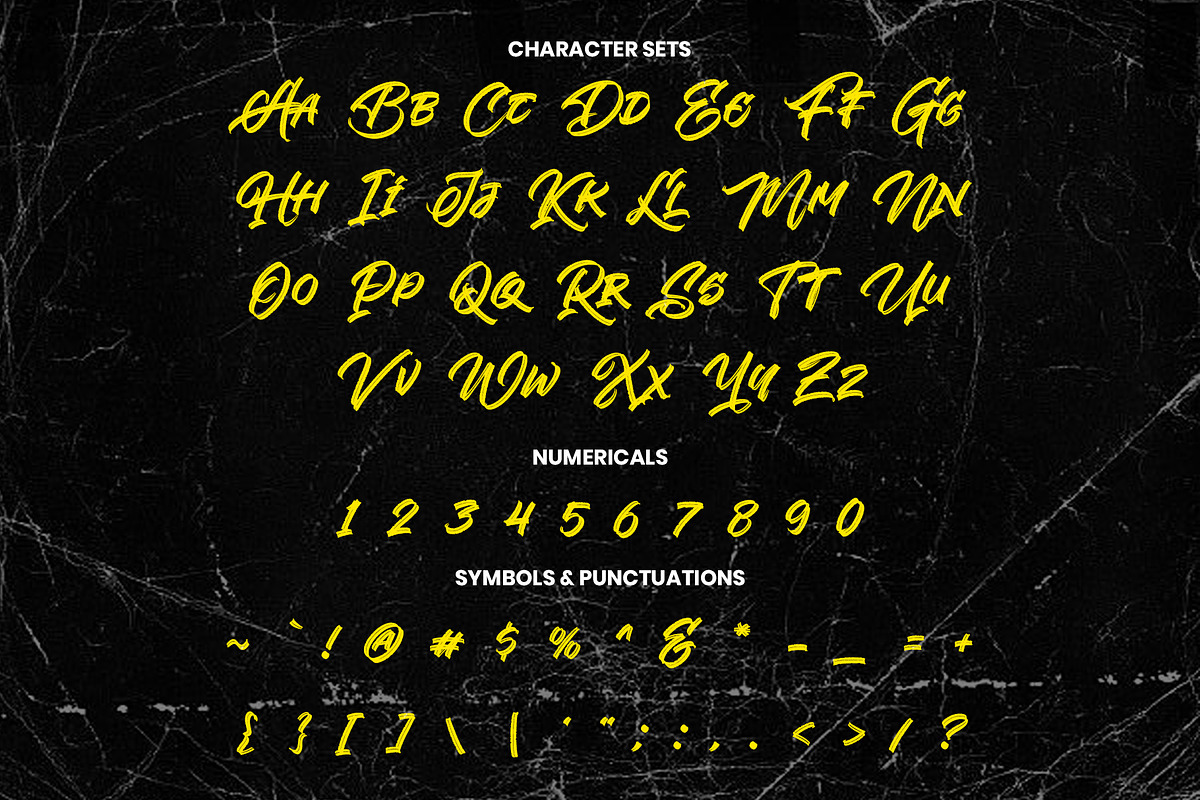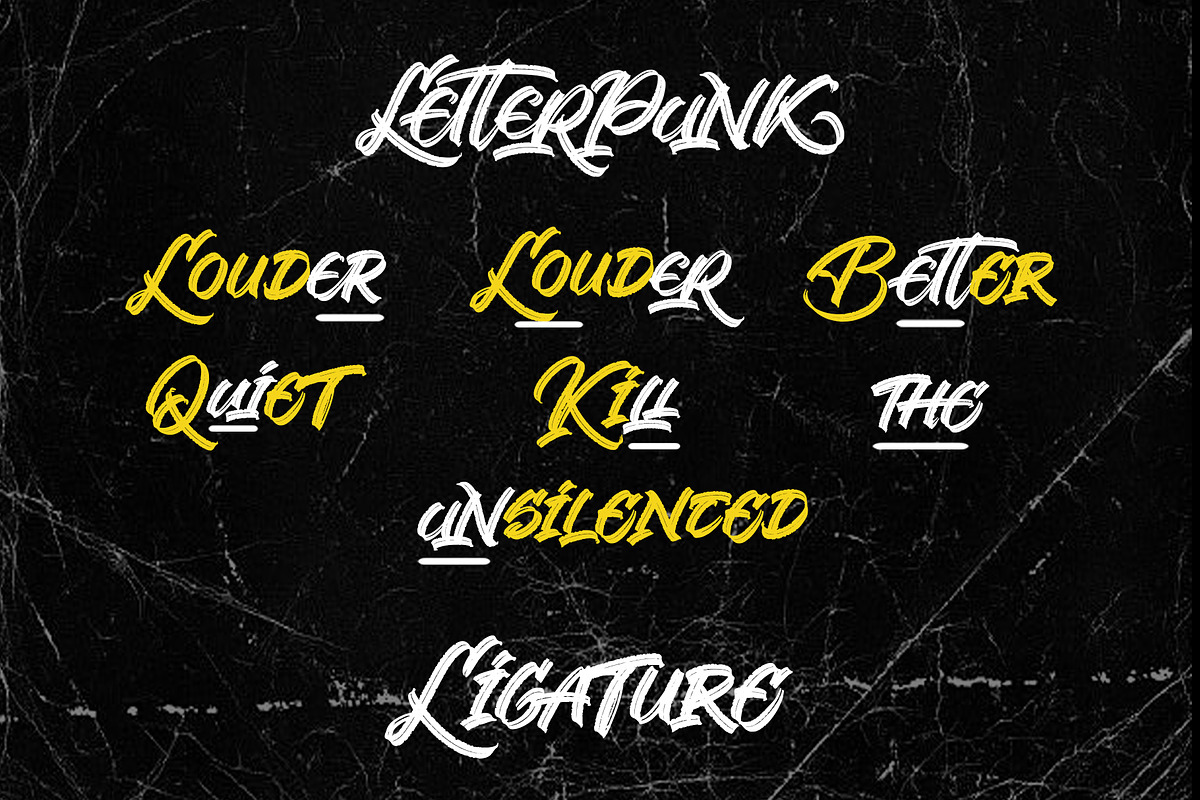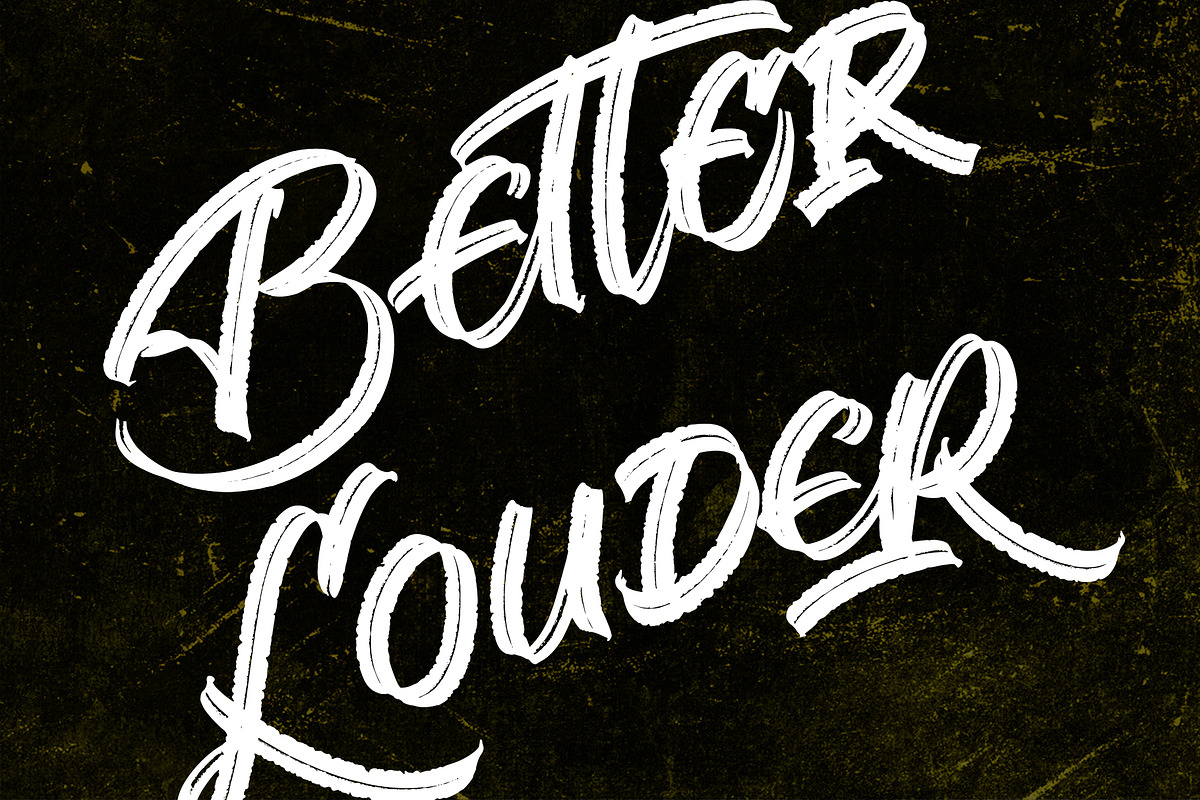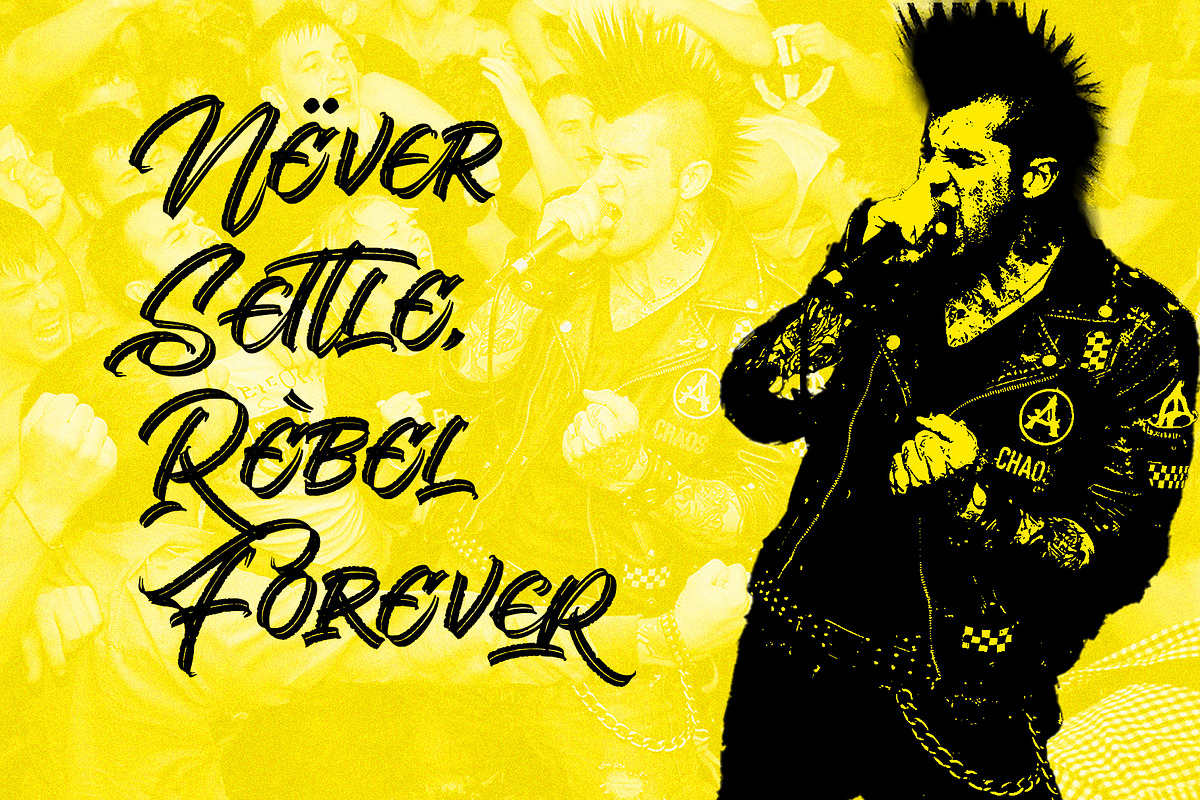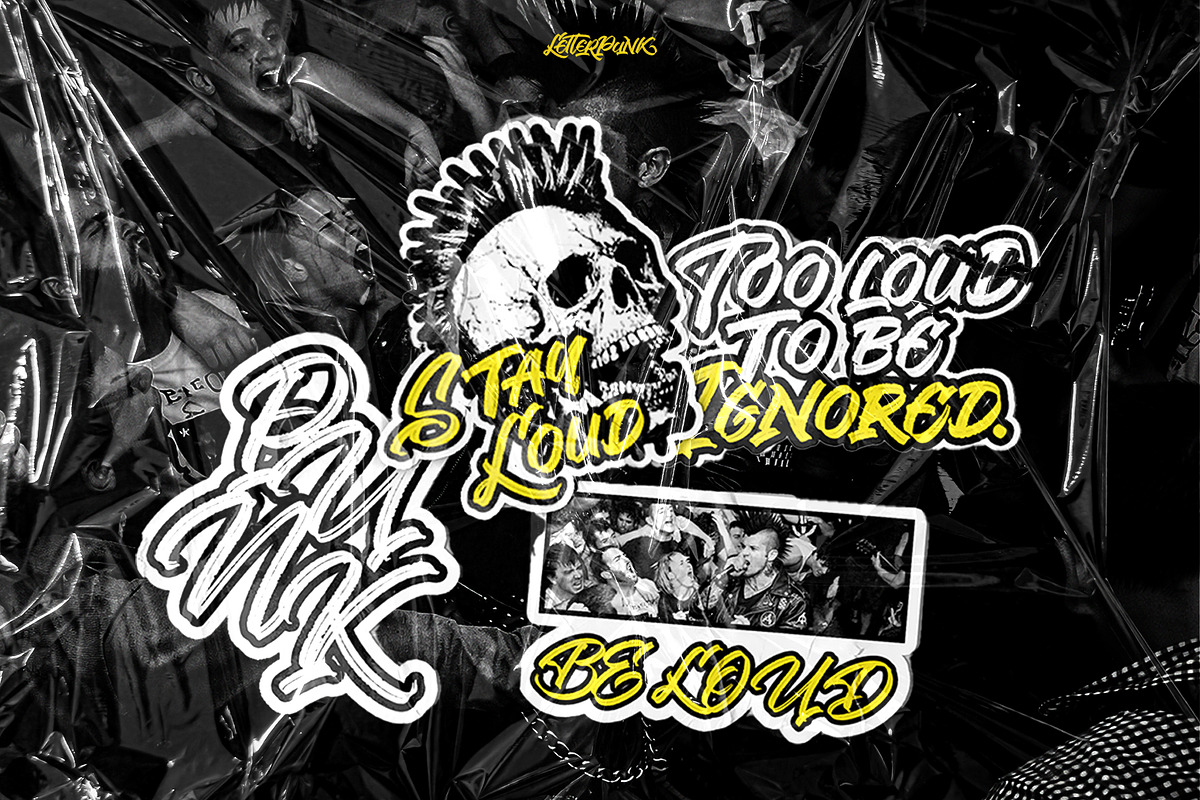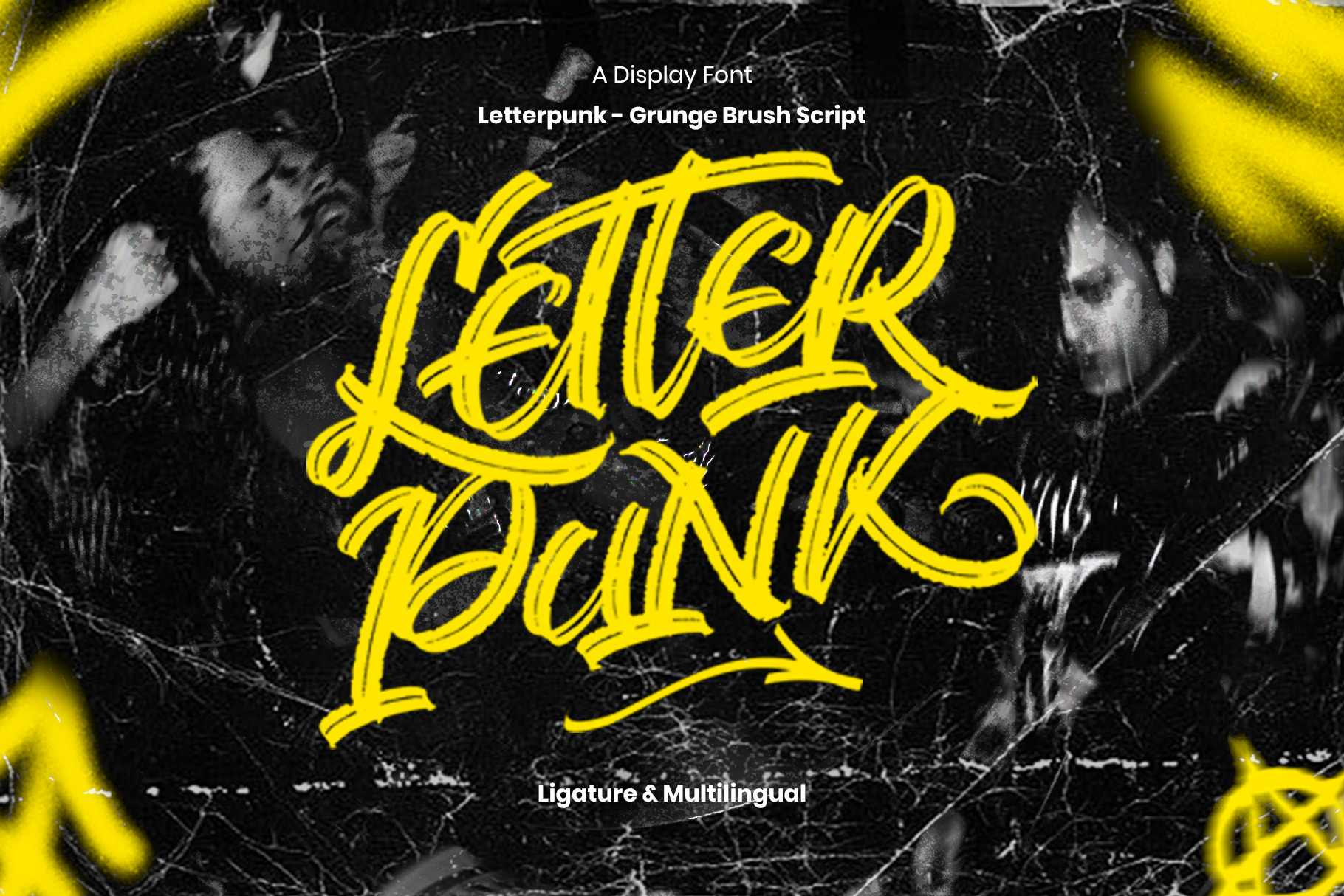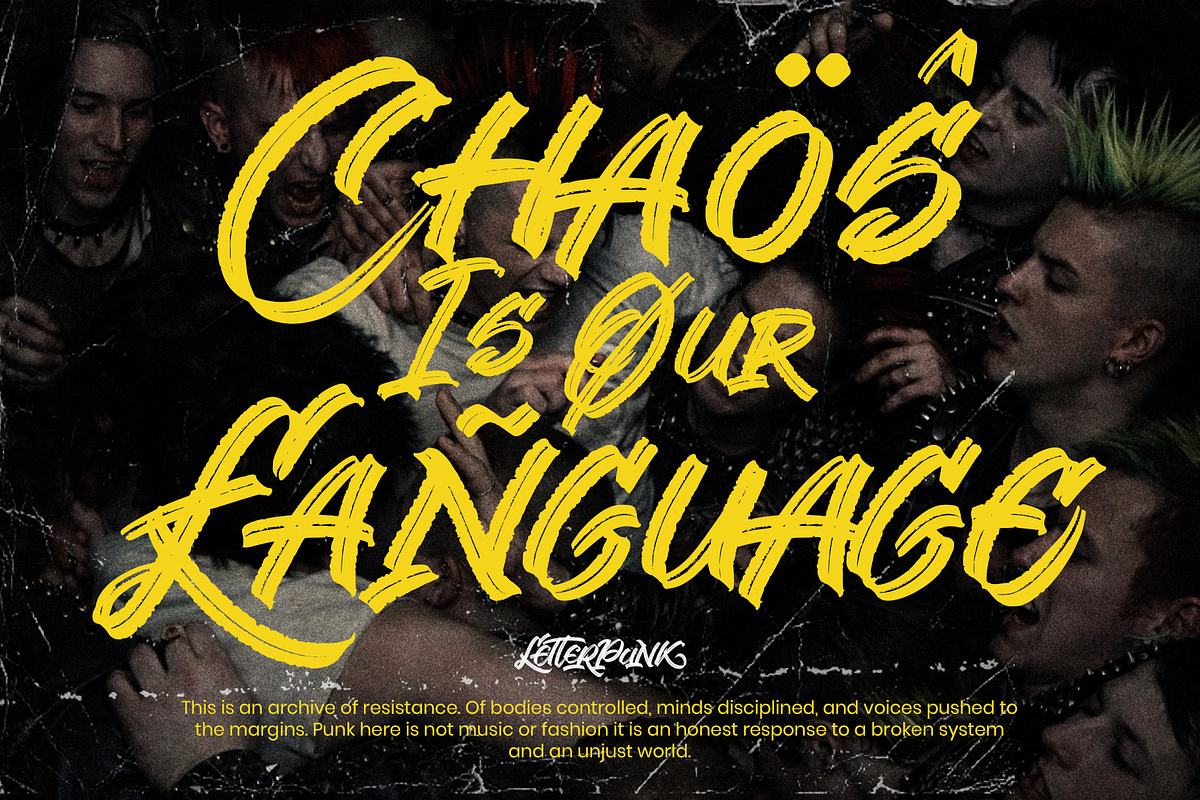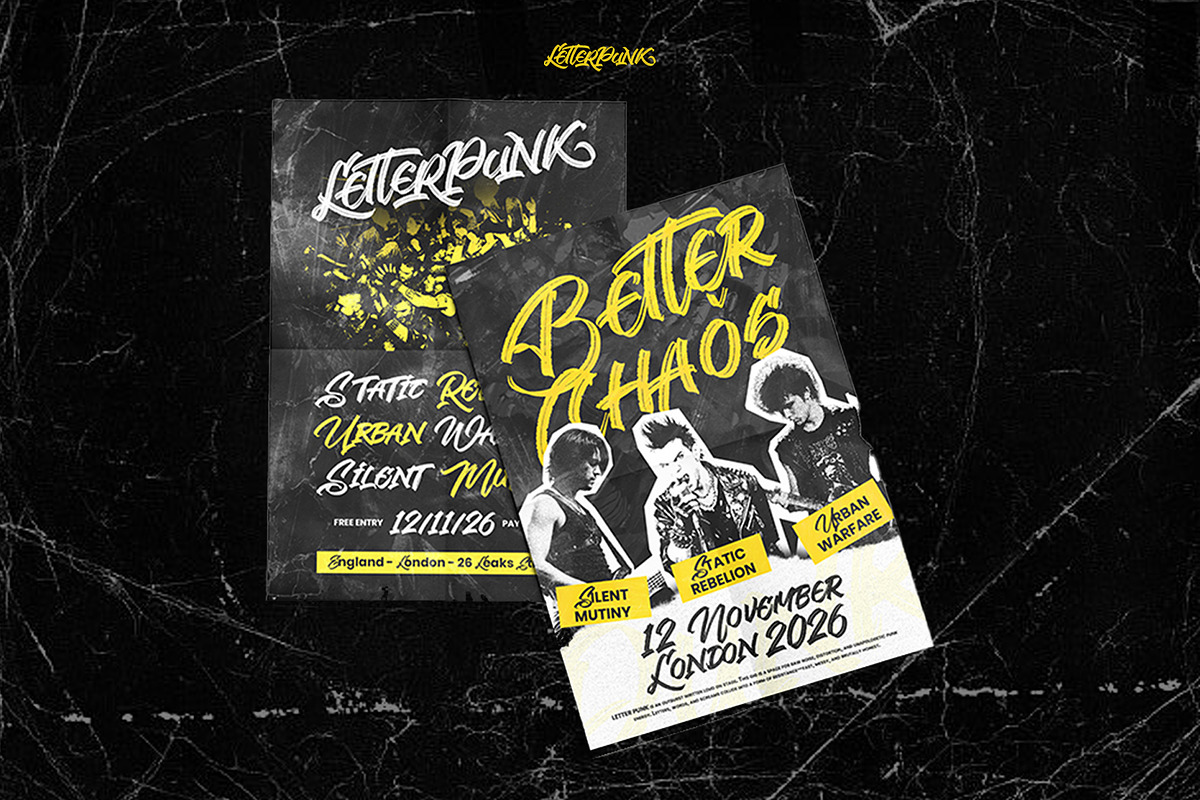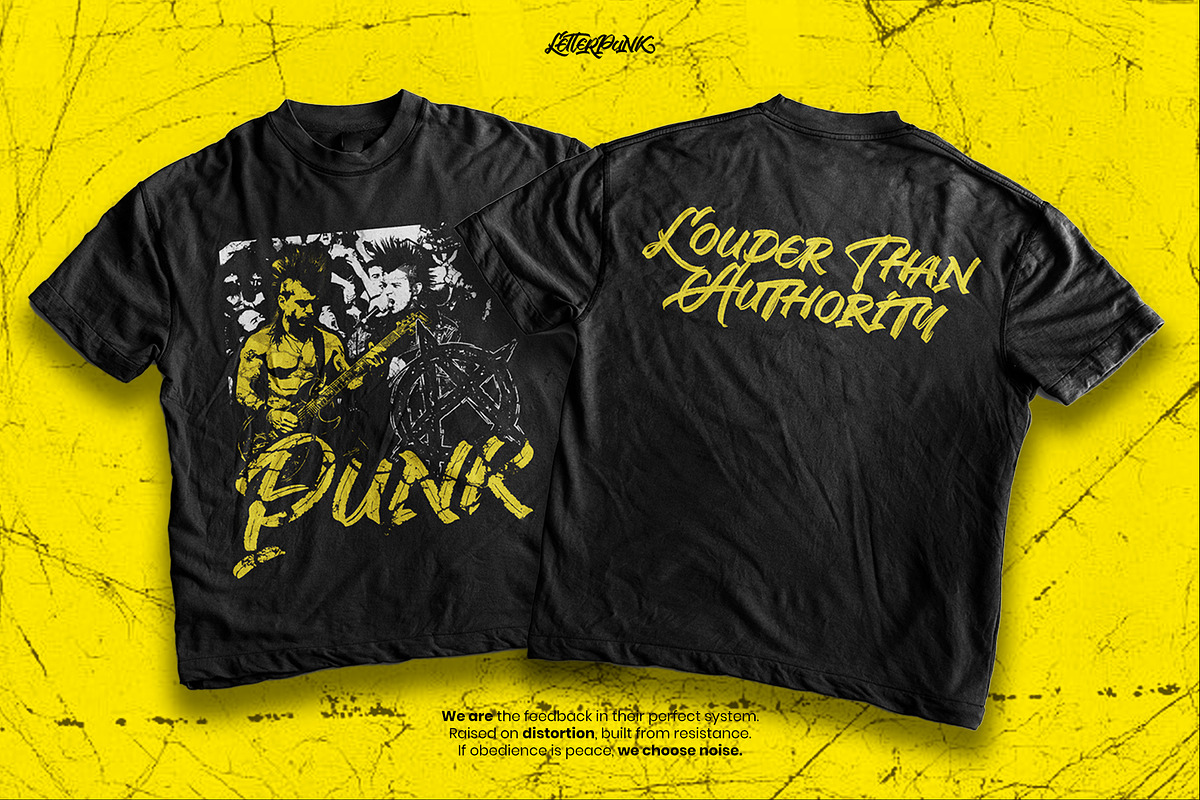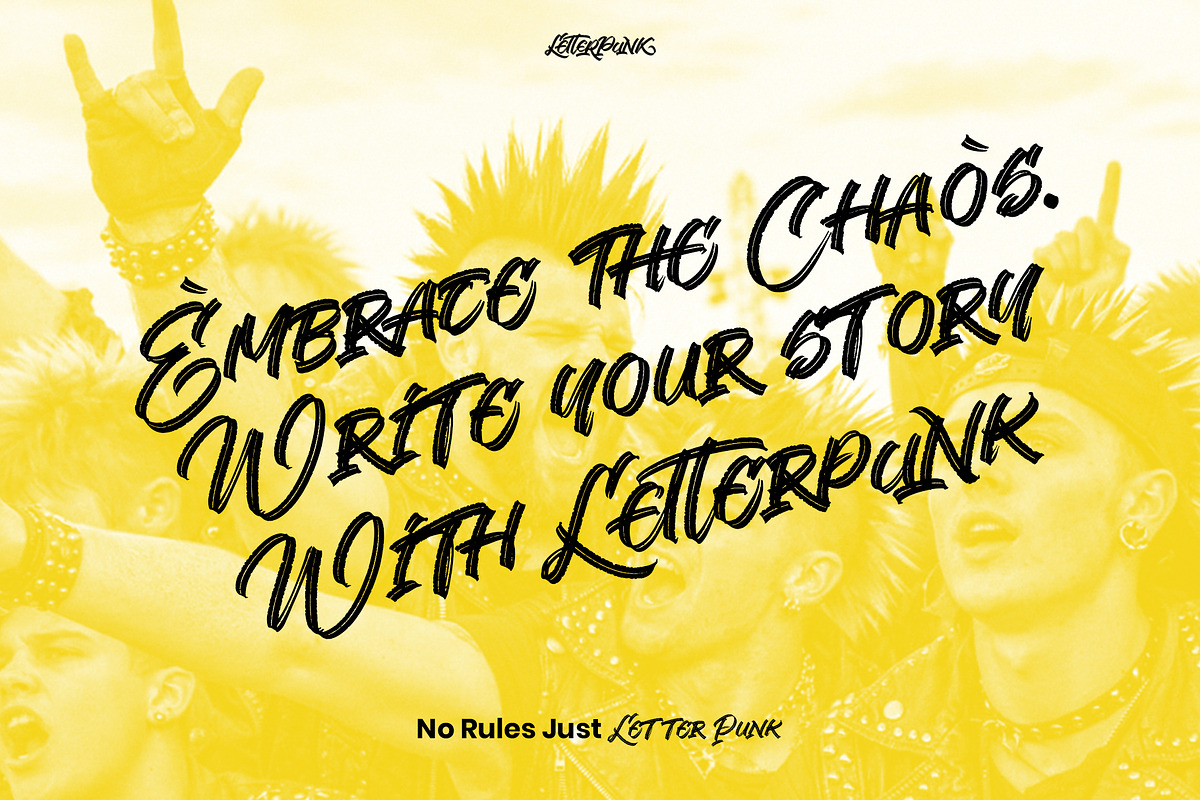
Letterpunk - Grunge Brush Font
Letterpunk is a bold grunge brush script font built for noise, rebellion, and unapologetic expression. With aggressive strokes, rough edges, and raw hand-drawn energy, it captures the spirit of punk culture and underground resistance.
Each letter feels loud, chaotic, and alive perfectly imperfect with natural brush texture and dynamic movement. Designed to dominate headlines, posters, album artwork, streetwear branding, and protest visuals, Letterpunk brings fearless attitude and disruptive character to every composition. No polish. No compromise. Just raw typographic rebellion.
Uppercase & Lowercase Characters
Numbers & Symbols
Stylistic Ligatures
Natural Brush Texture Details